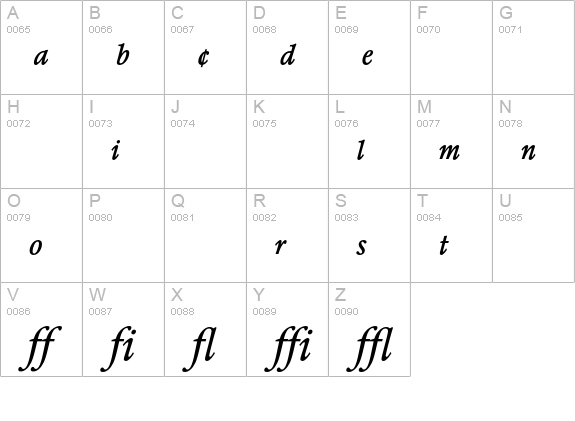
Poppl-Pontifex BE Italic Expert is a distinctive, italic variant in the Poppl typeface family \xE2\x80\x94 well suited to design and typography projects.
Introducing the stunning Poppl-Pontifex BE Italic Expert font, a sophisticated and elegant typeface that exudes class and style. Its sleek italic design adds a touch of modernity while maintaining a timeless appeal. This font is perfect for adding a touch of sophistication to any project, whether it's for branding, editorial design, or any creative endeavor. The Poppl-Pontifex BE Italic Expert font is not only visually appealing but also highly versatile, making it suitable for a wide range of applications. Its intricate details and expertly crafted design make it a standout choice for those looking to make a statement with their typography. What's even better is that this exquisite font is available for free download at FontsMarket.com. So, whether you're a designer looking to enhance your portfolio or a business owner in need of a unique font for your brand, the Poppl-Pontifex BE Italic Expert font is the perfect choice. Download it today and elevate your designs to new heights of sophistication and style.